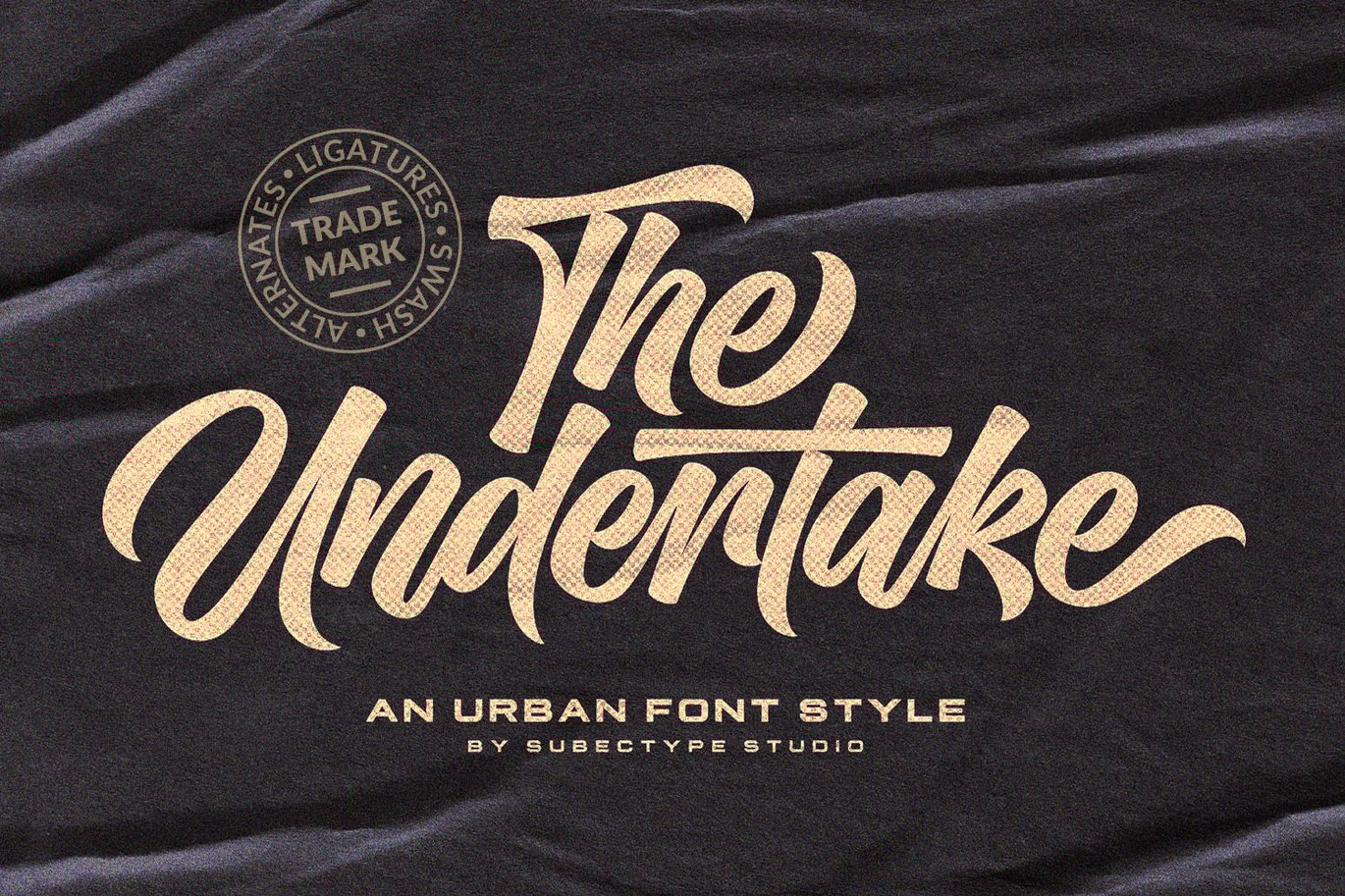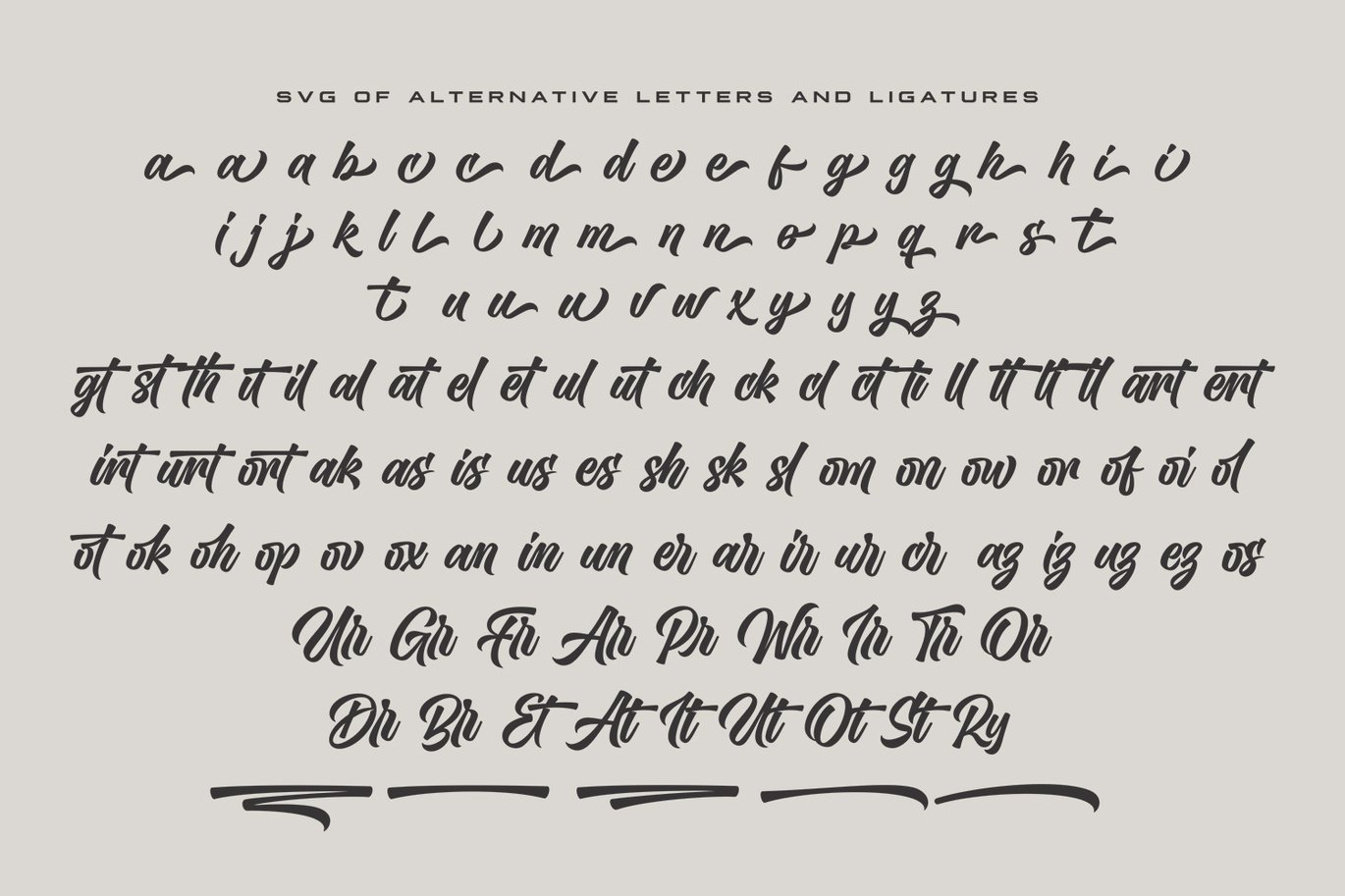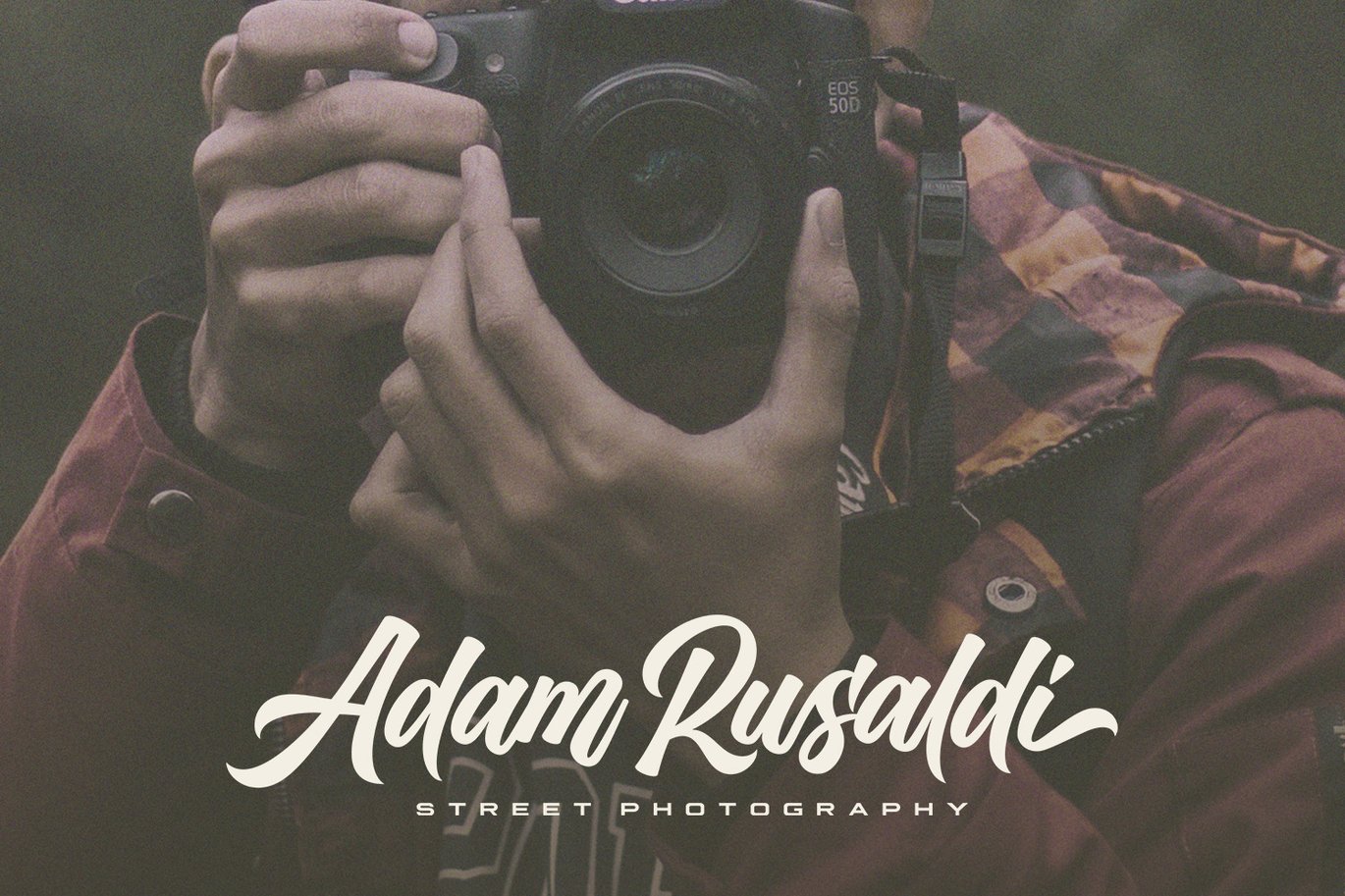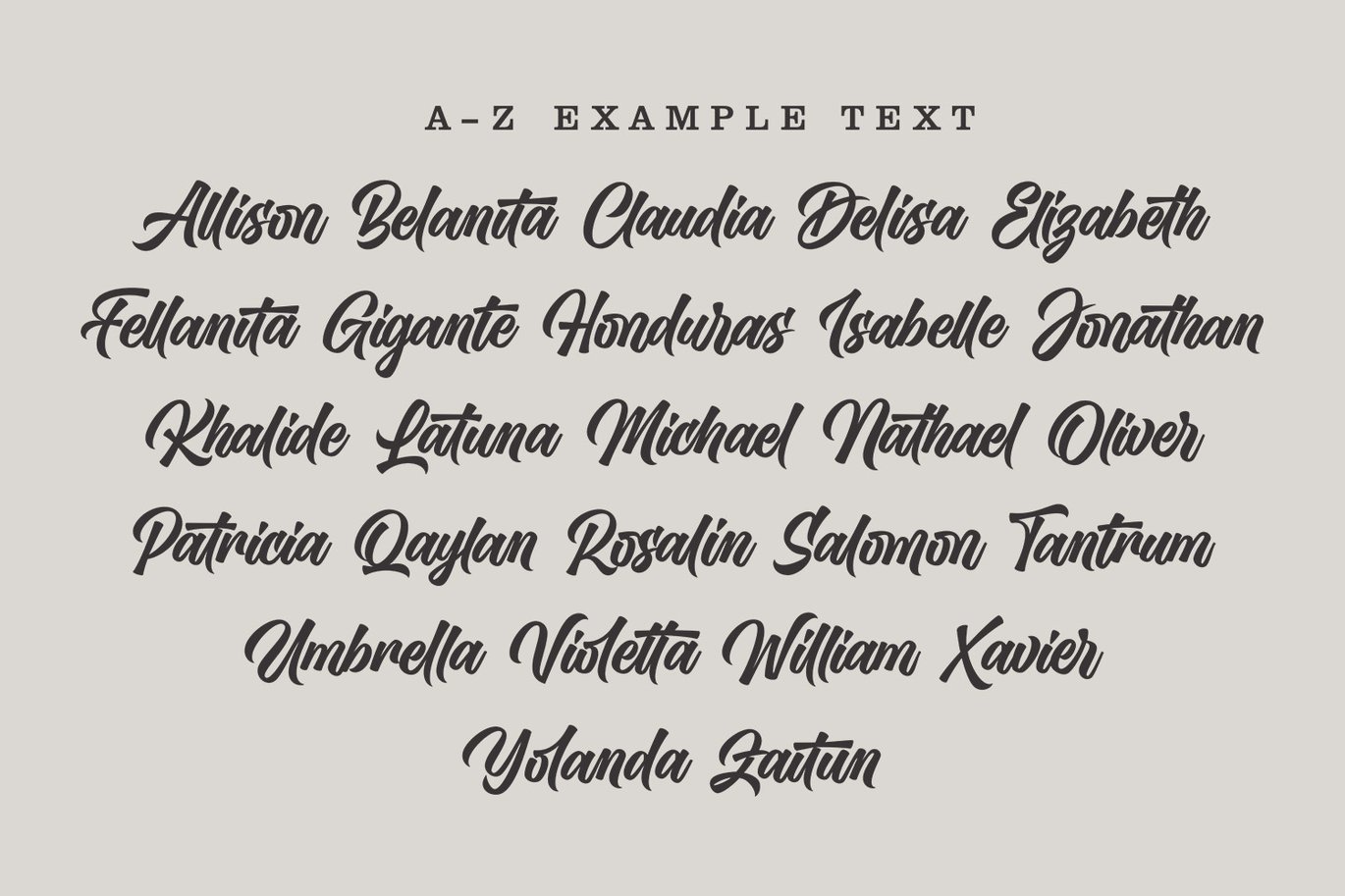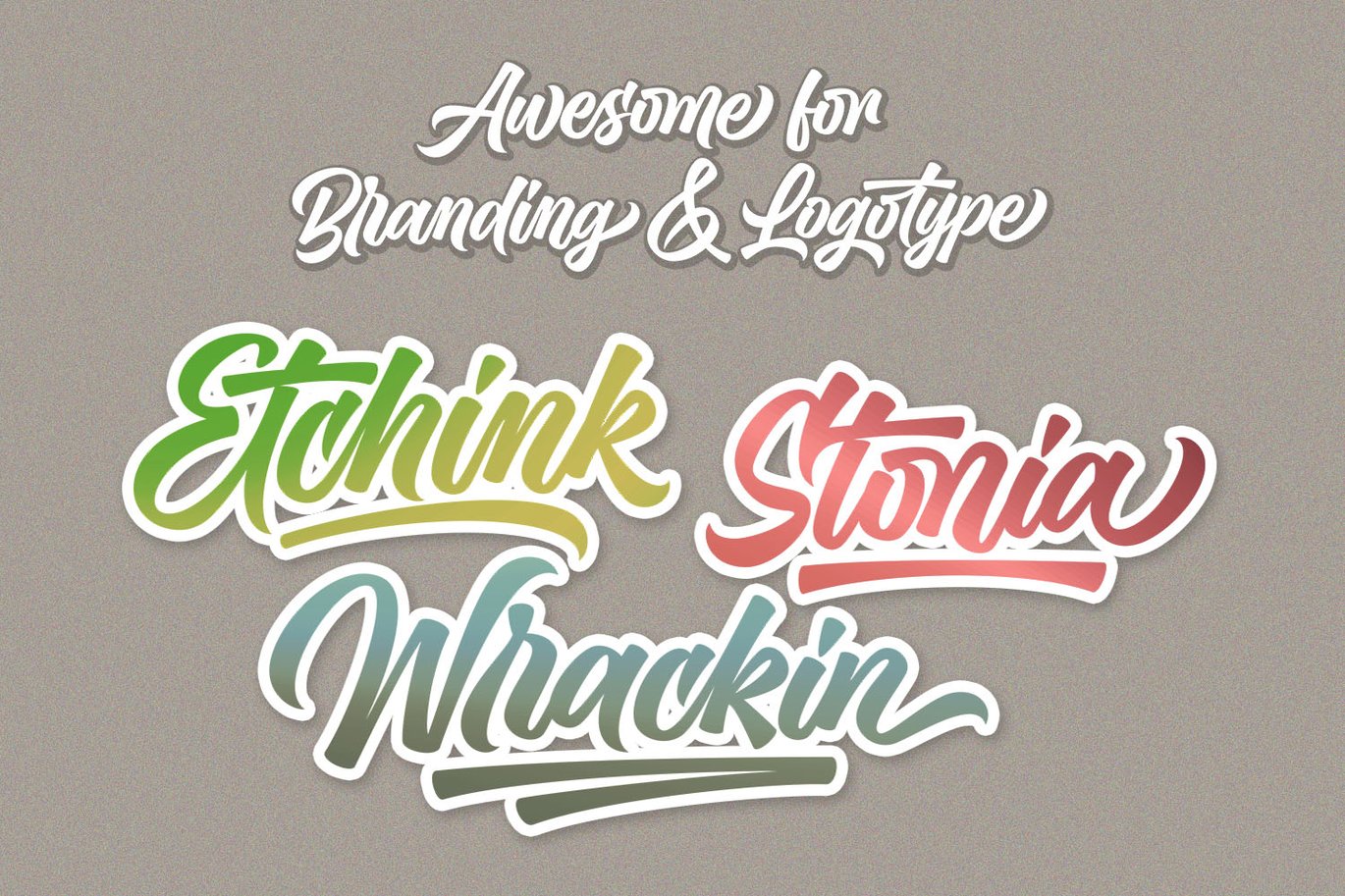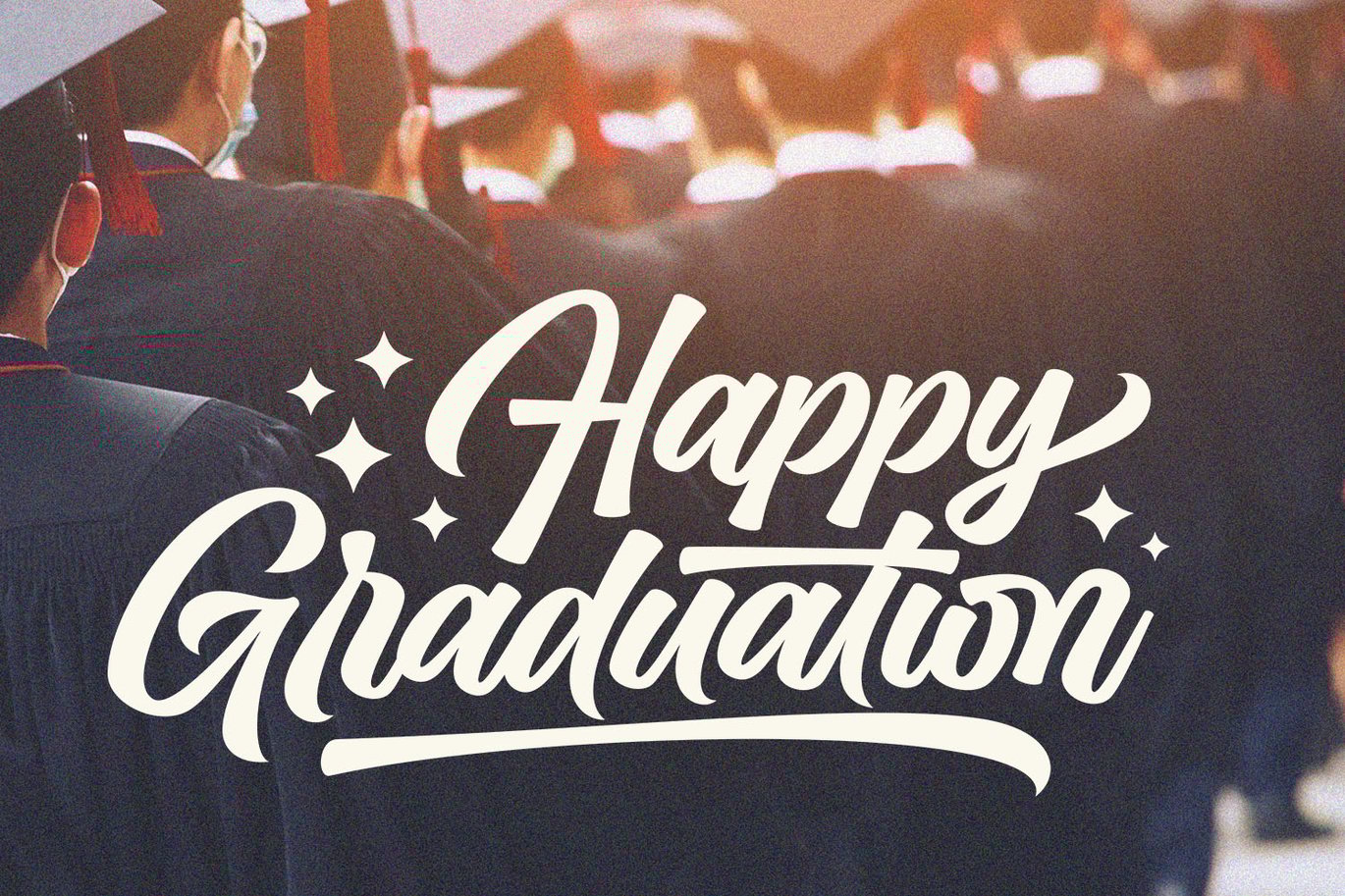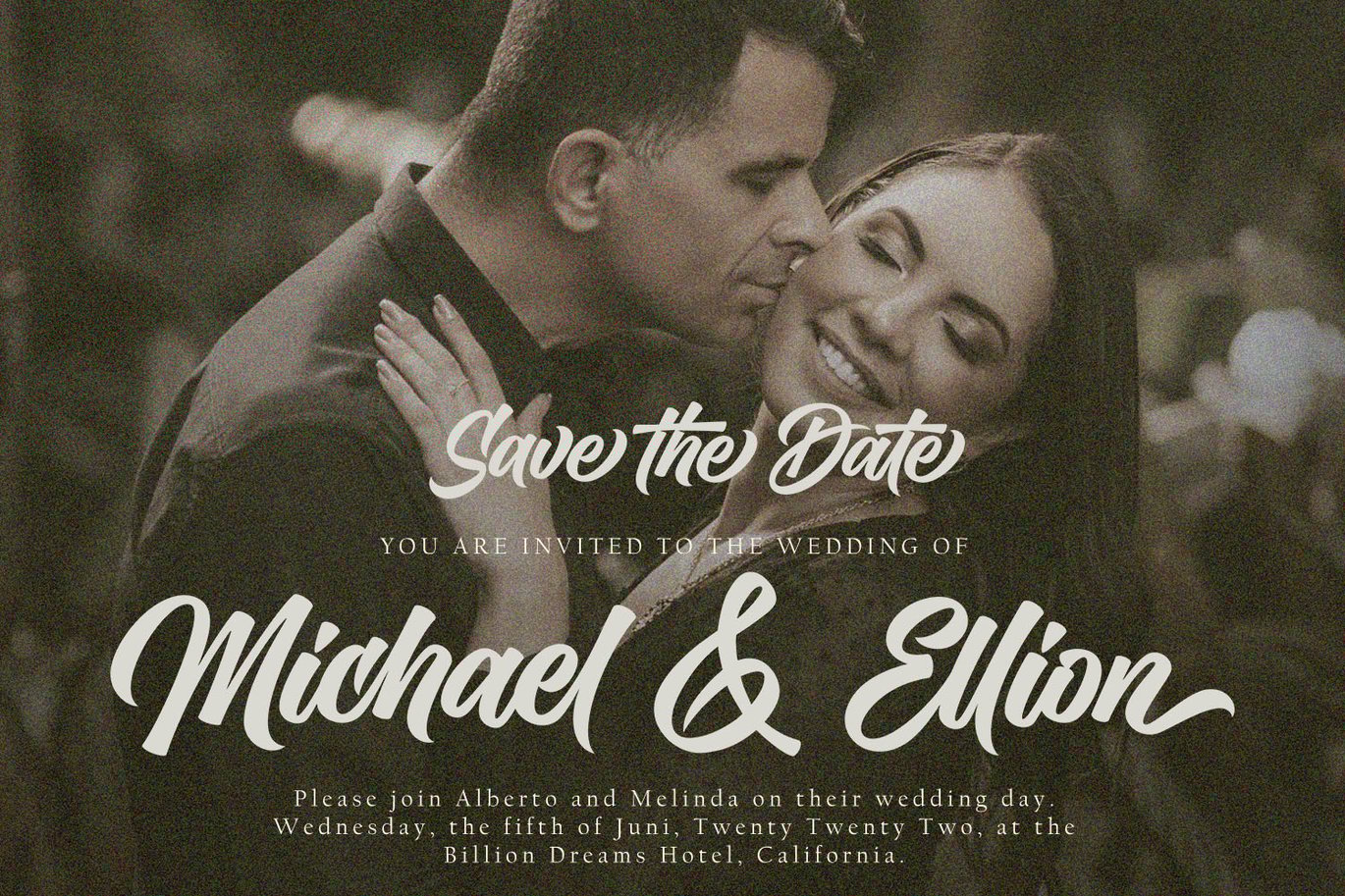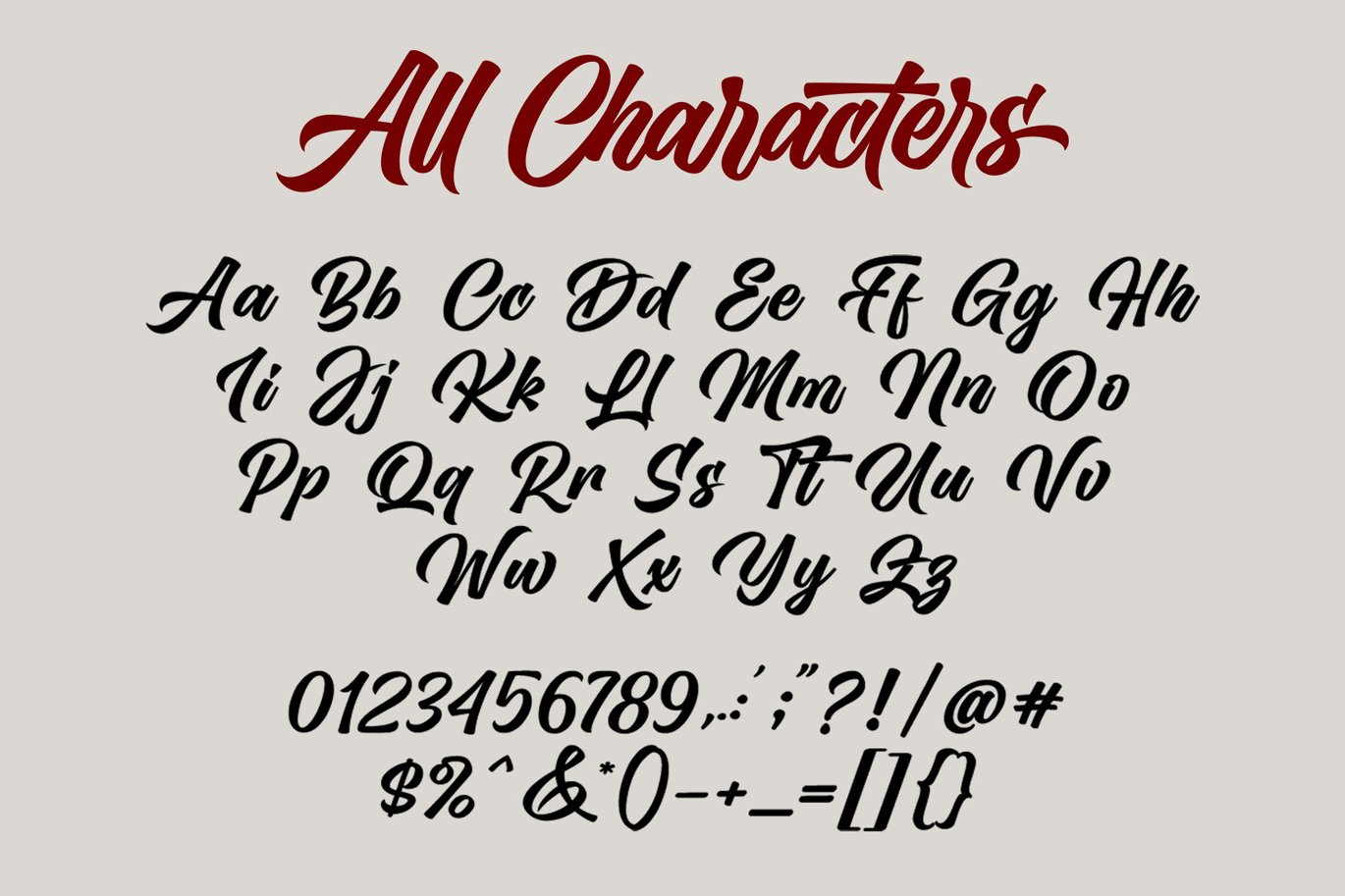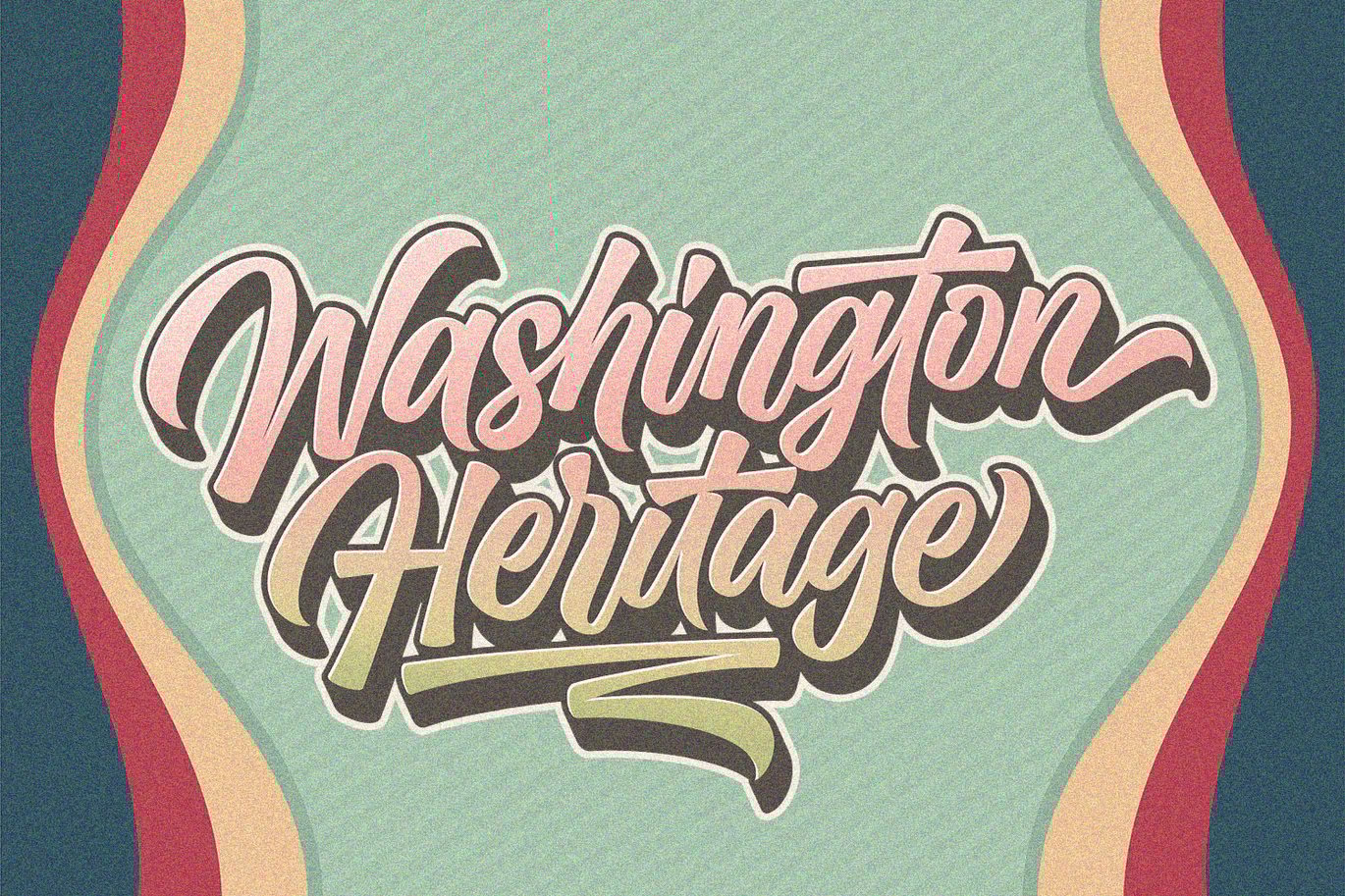
Undertake – Urban Lettering Font
The Undertake is an urban lettering font. Inspired from lettering typography style and vintage Looks in the 70’s and 80’s.
Numerals
Punctuations (OpenType Standard)
Accents (Multilingual Characters)